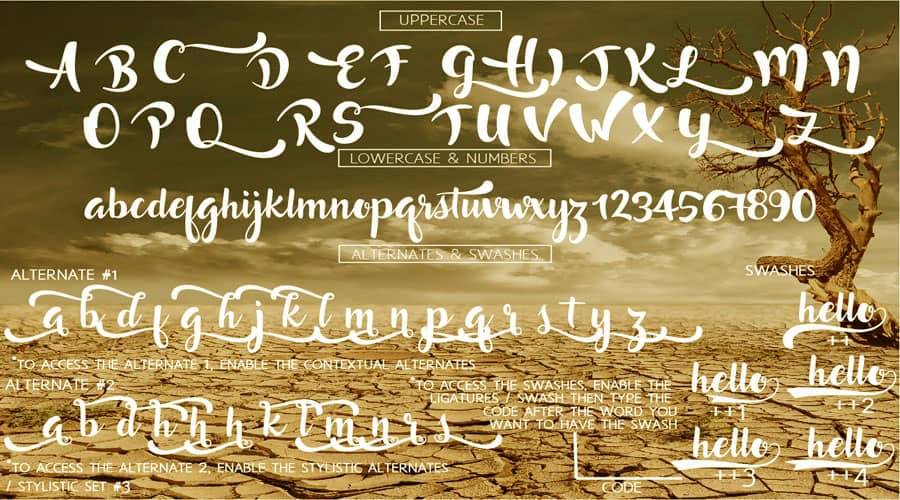
Lost in Wild Font Free
Lost in Wild Font Free is the most recent Script and Calligraphy typeface. Francis Studio created and released the Font on February 11, 2018.
Font Features:
- Upper and Lowercase
- Number and Punctuation
- Beginning and Ending Swashes
- Lowercase Alternate
- Special Ligatures
Lost in Wild Font Free is ideal for all of your whimsical designs. The Lost in Wild Regular is also an excellent option to create exciting designs, covers, store and retail outlet names, and brand logo. The Lost in Wild Regular font is also perfect for branding projects, quotes, homeware designs, product packaging, or as a stylish text overlay to any background image.
| Name | Lost in Wild Font Free |
| Style | Script, Calligraphy |
| Designer | Francis Studio |